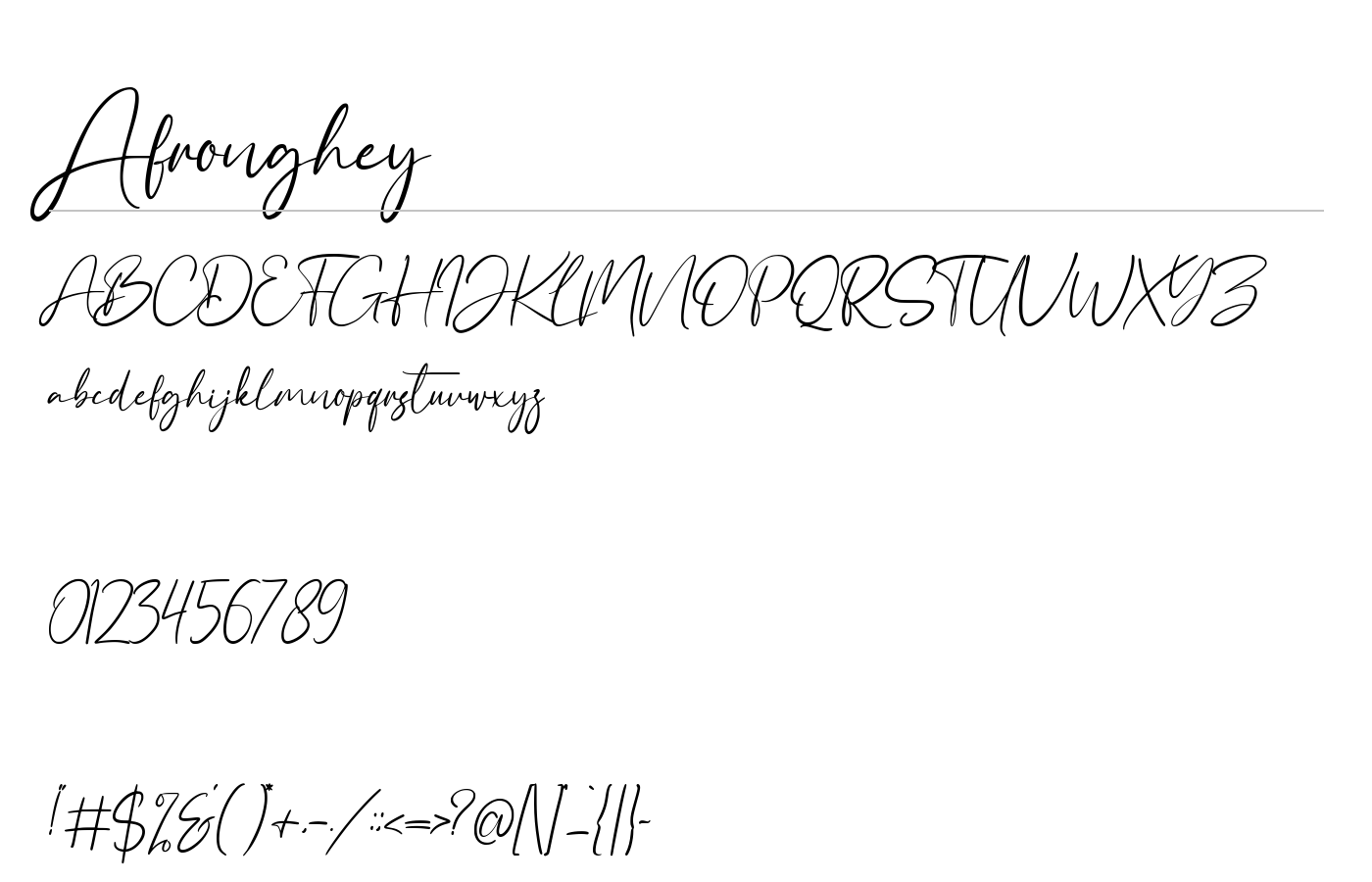
Afronghey is a delicate, modern script font with thin, flowing strokes that mimic elegant handwriting. Its tall, narrow letterforms and smooth curves give it a refined yet approachable feel, making it perfect for stylish branding, invitations, and feminine design projects where a touch of grace and personality is desired.
Afronghey Font
About Afronghey Font